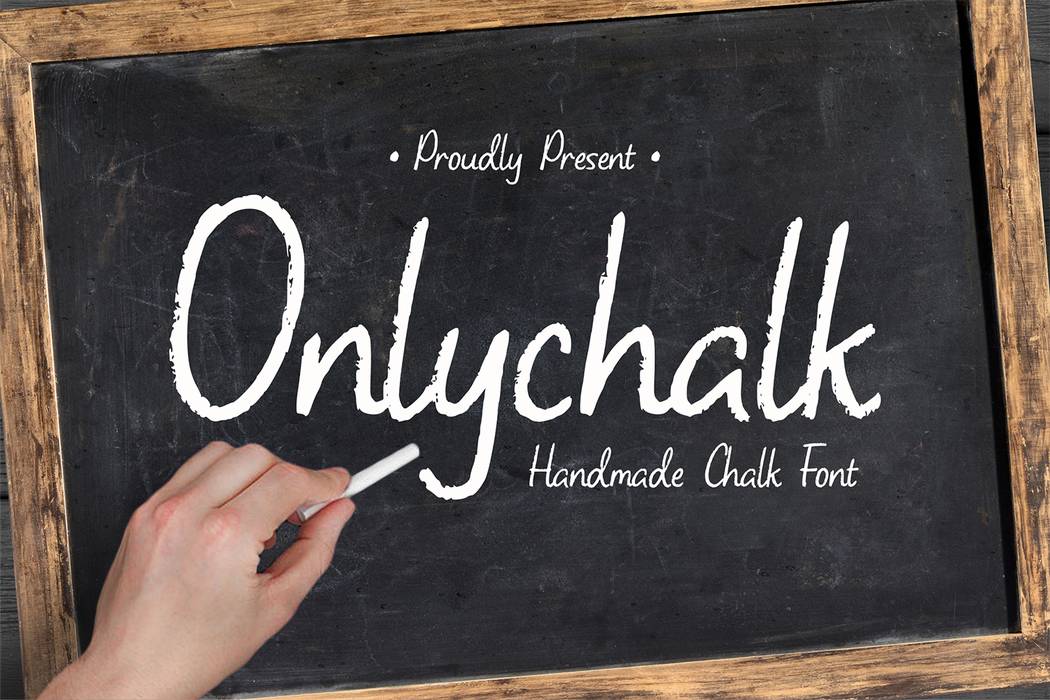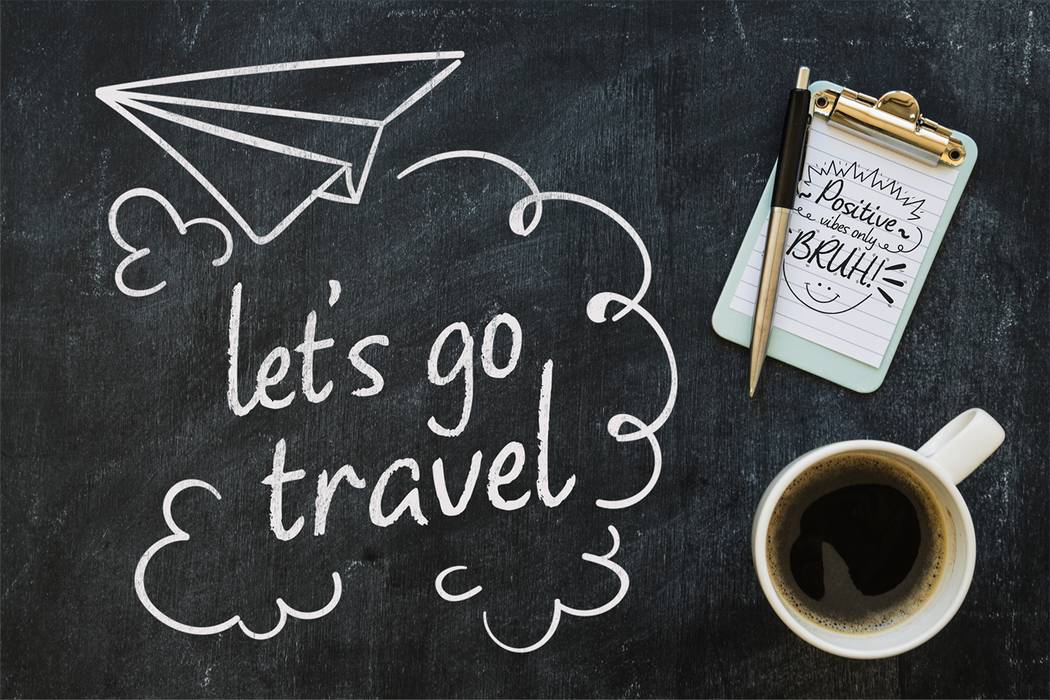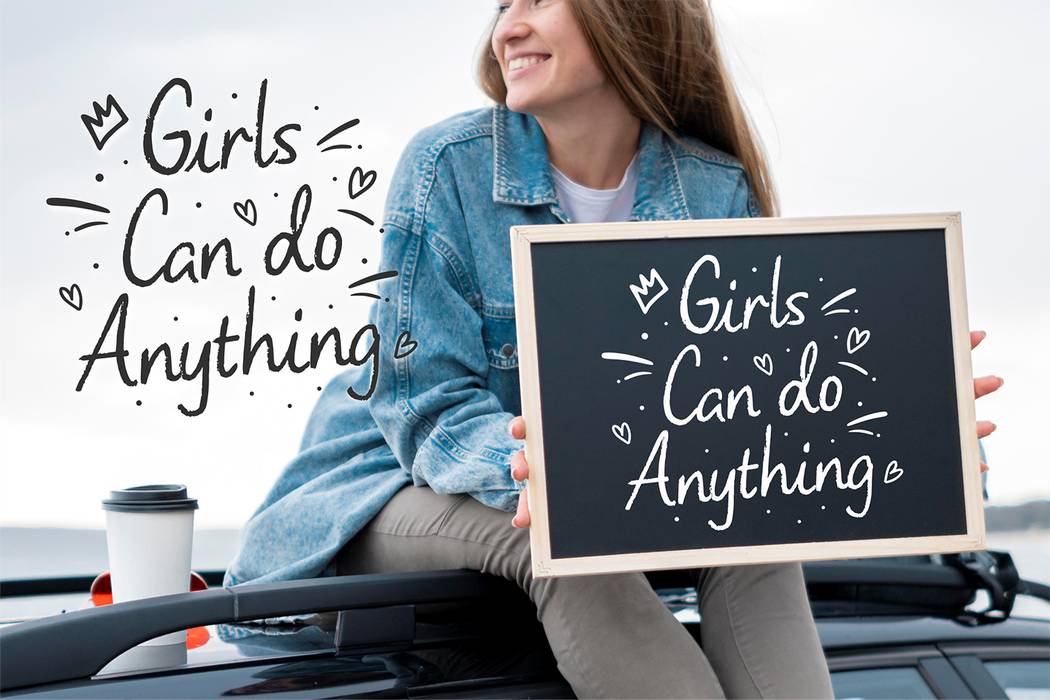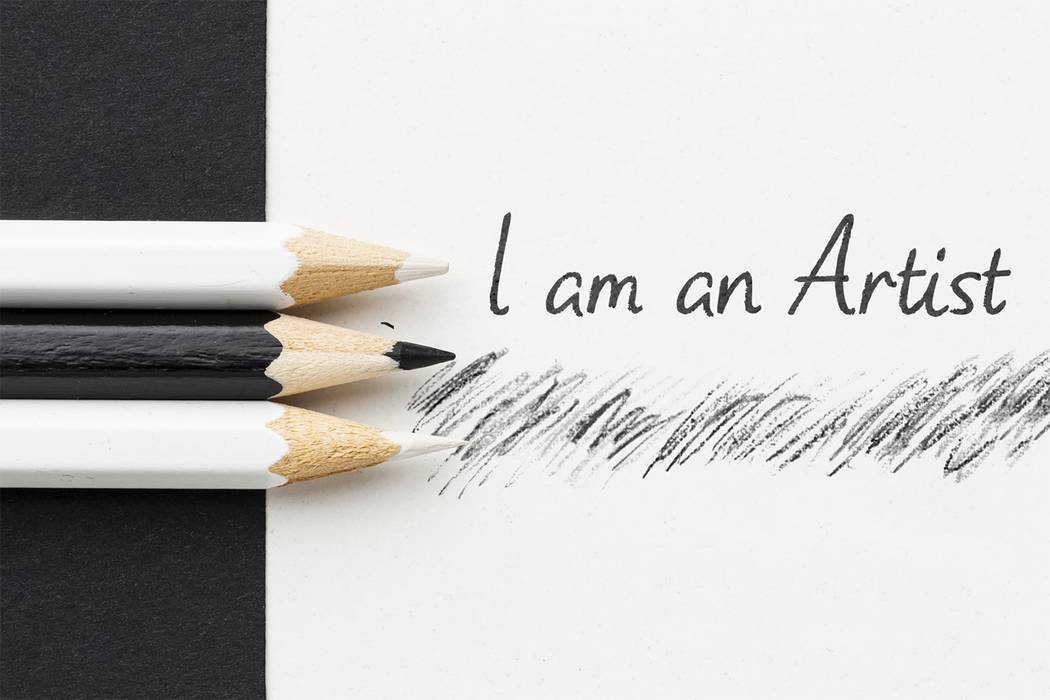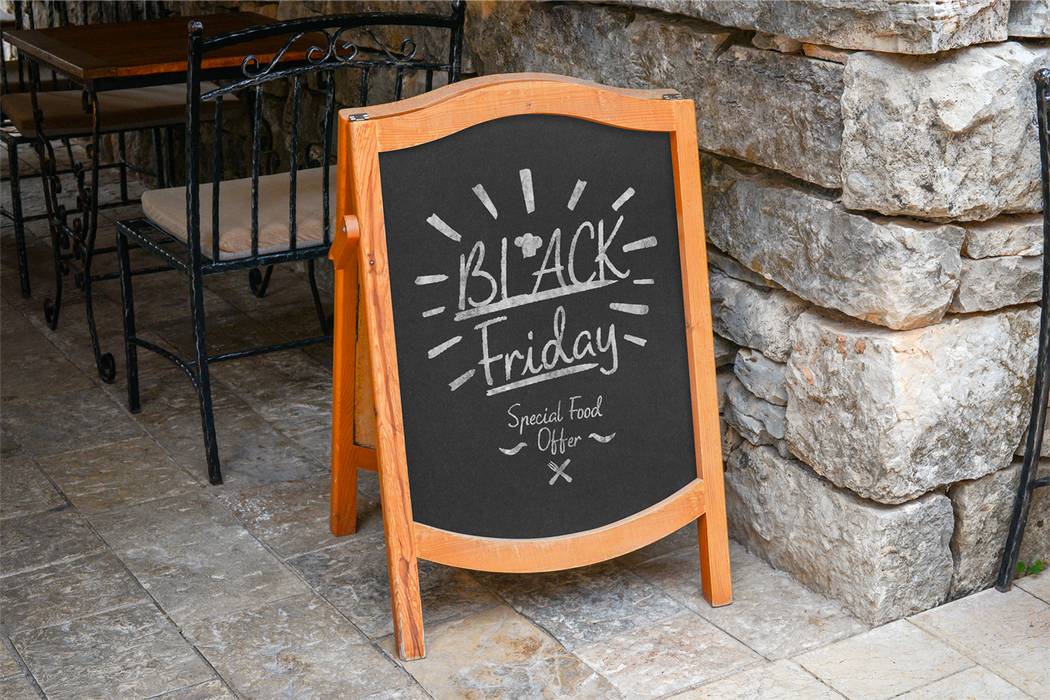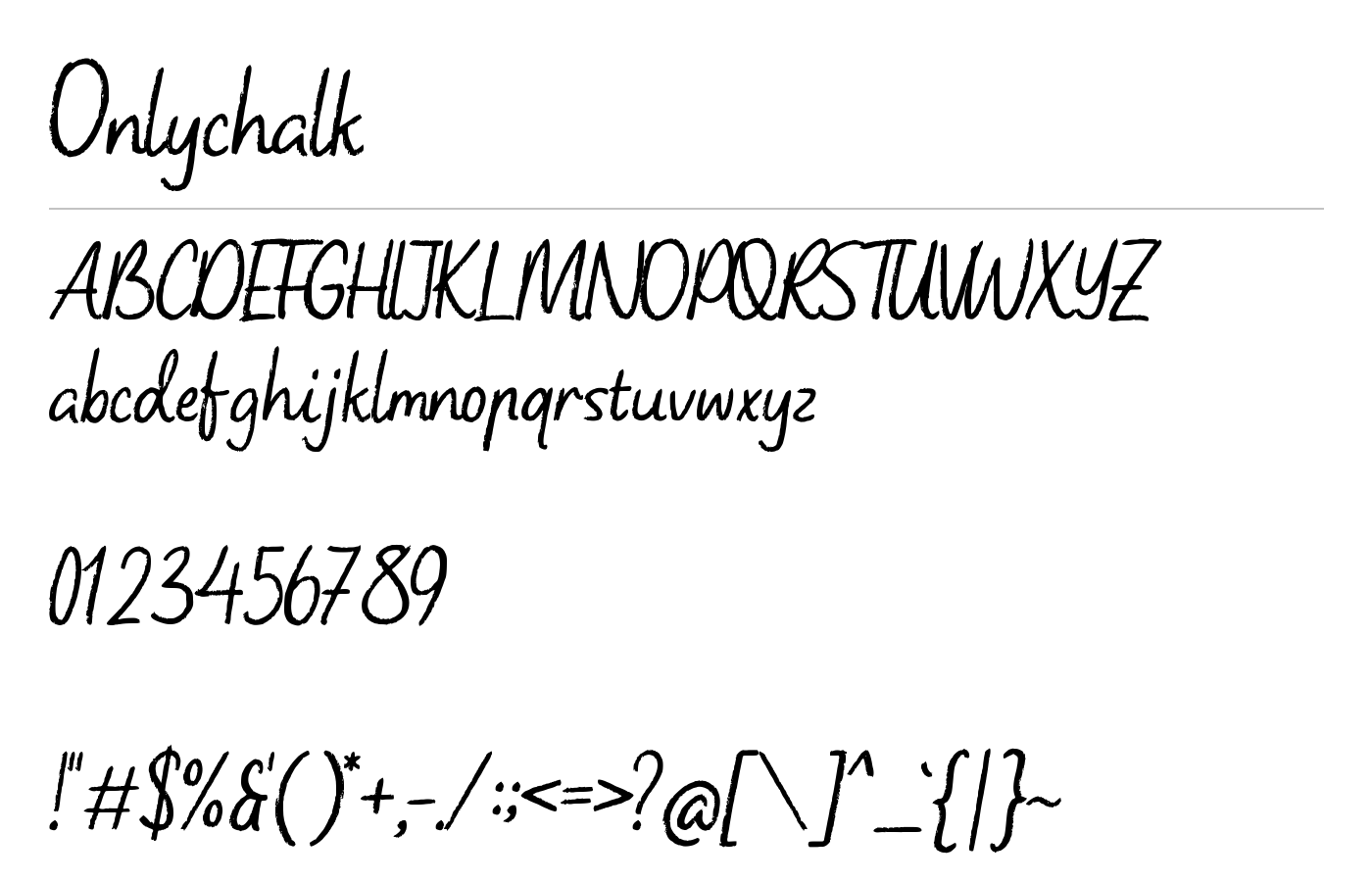
Onlychalk is a casual, handwritten script font that mimics the texture and flow of chalk on a blackboard. Its slender, slightly irregular strokes give it a friendly and approachable feel, making it ideal for playful, creative, or educational designs that want to convey warmth and informality. This font works wonderfully for chalkboard-style branding, school-related projects, posters, and any design needing a personal, hand-crafted touch.
Onlychalk Font